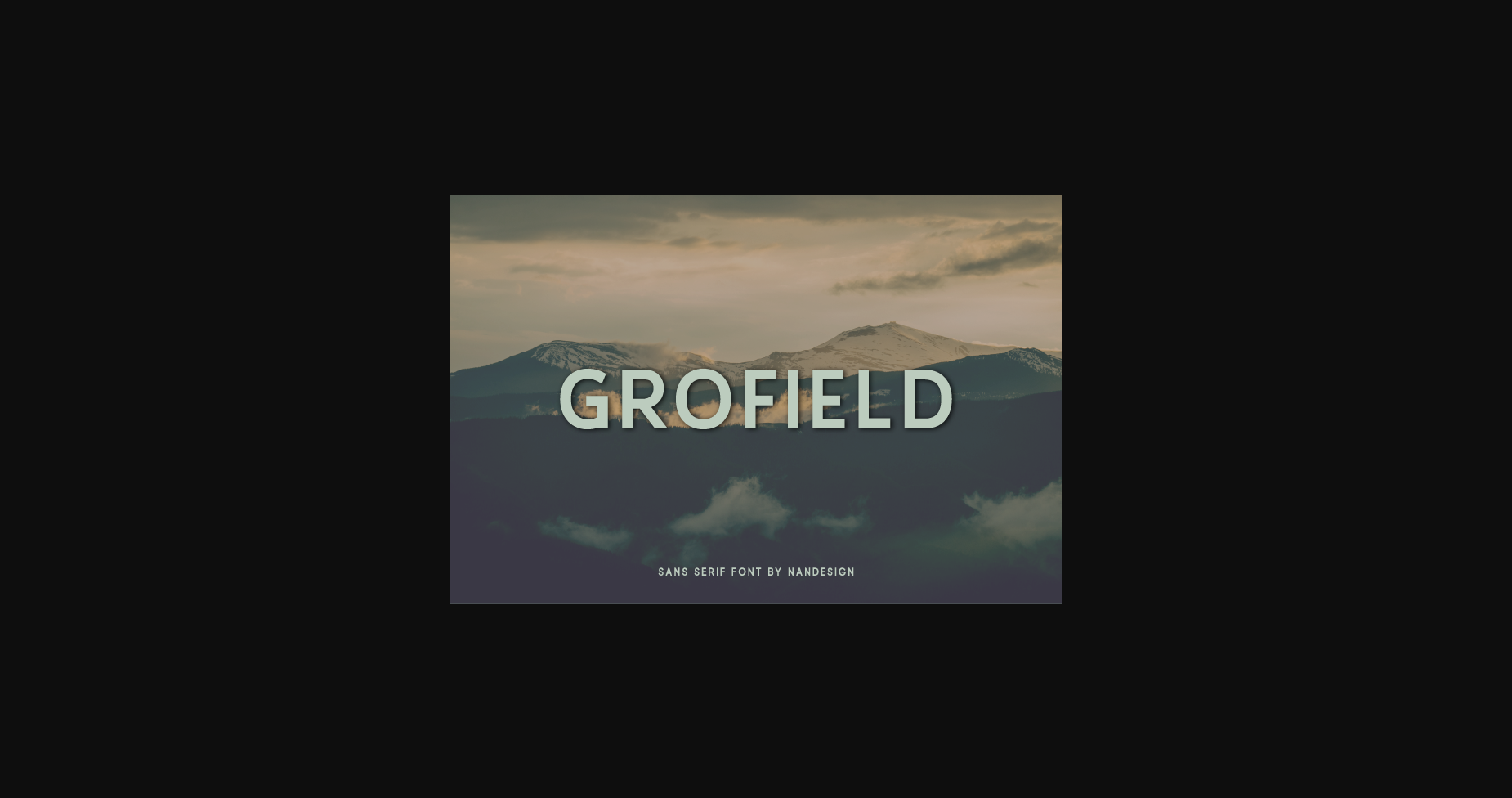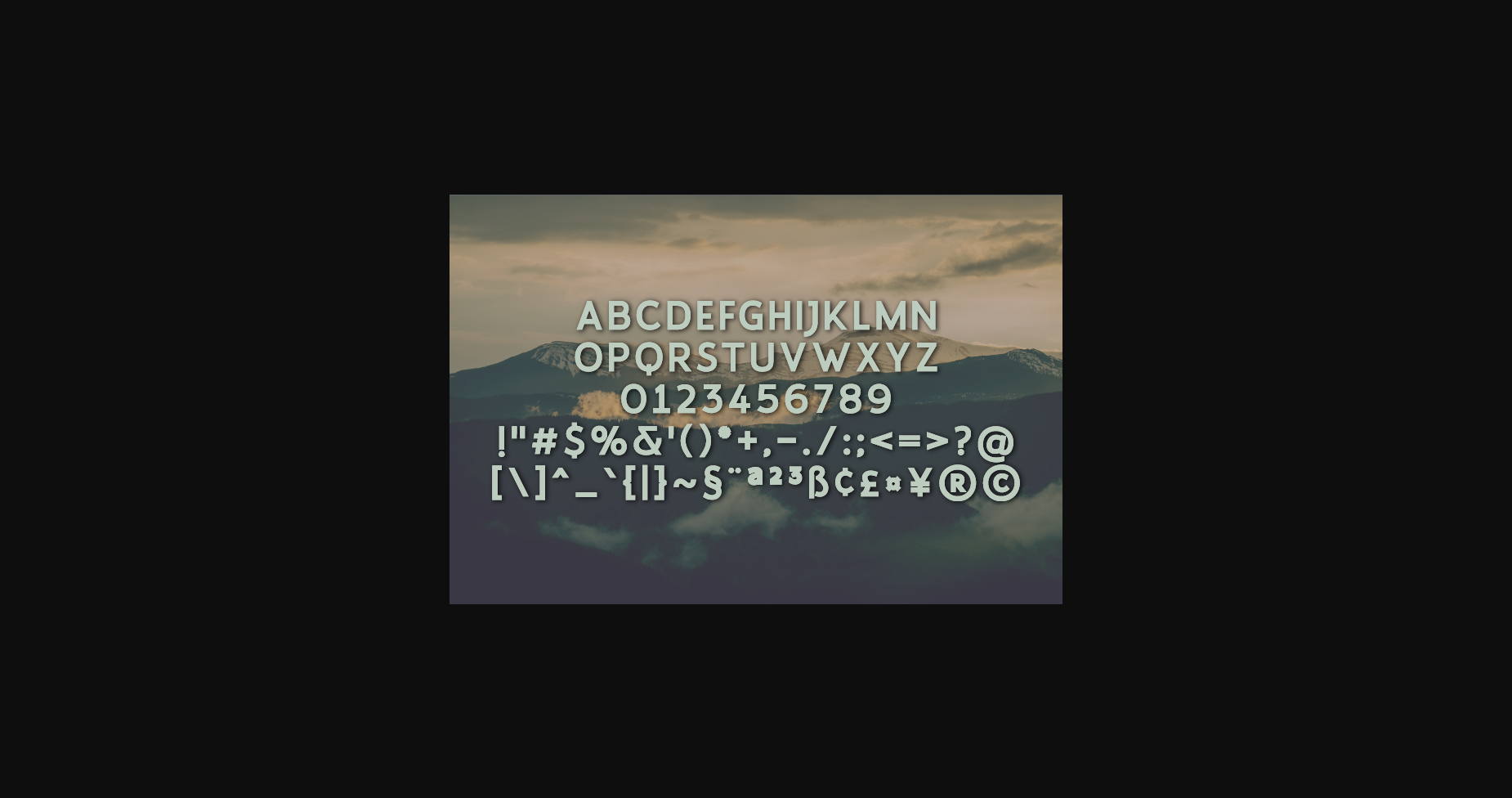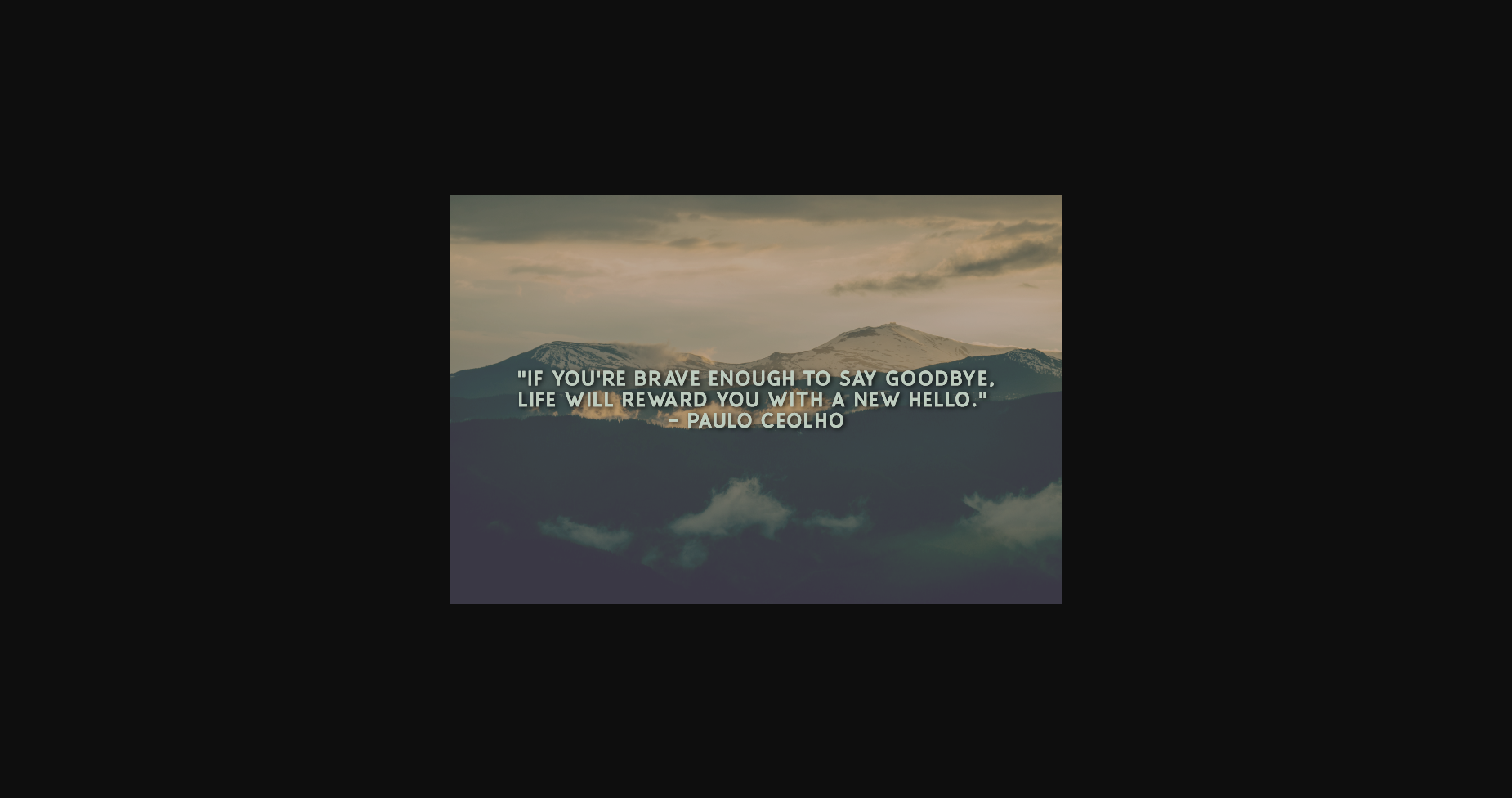
About Grofield Font
Grofield is a clean, slim and simple sans serif font.
It is perfect for product packaging, branding project, magazine covers, social media, wedding, or just used to express words above the background.